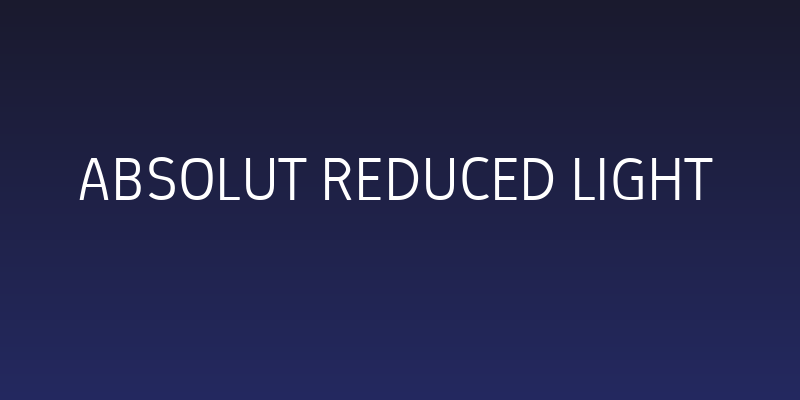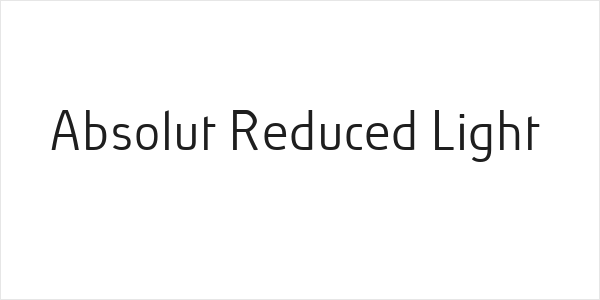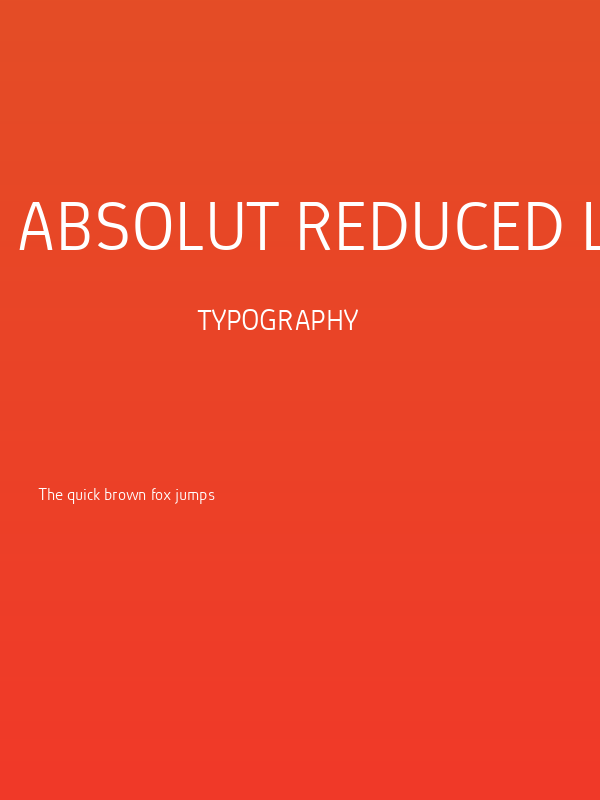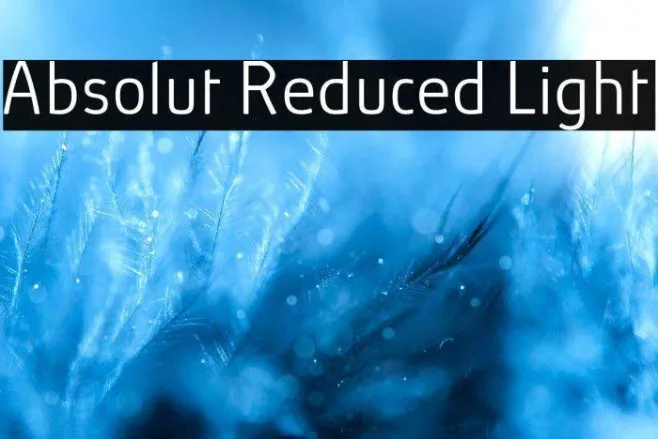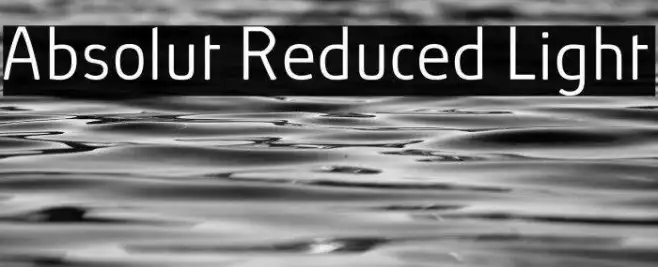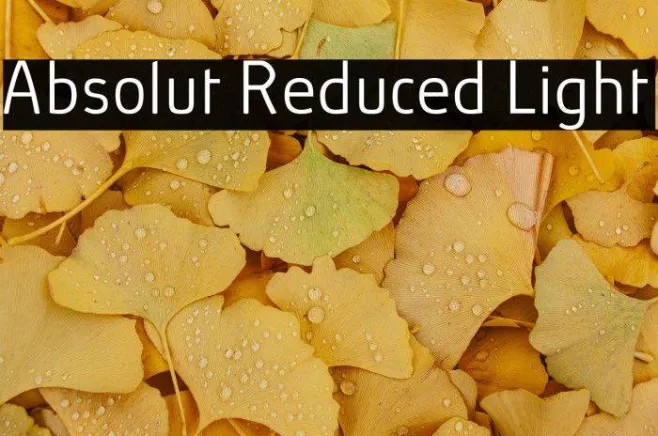
Absolut Reduced Light Font
Absolut Reduced Light Description
This font features a clean and modern sans-serif design with a geometric structure. The characters are evenly spaced, providing a balanced and harmonious appearance. The uppercase letters are uniform in height, while the lowercase letters maintain a consistent baseline, enhancing readability. The font's simplicity and clarity make it versatile for various design applications. It exhibits a light weight, contributing to its elegant and understated look. The rounded edges of certain characters add a touch of softness, while the overall design remains sleek and professional.
| Proposed Projects | Ideal for branding, web design, corporate materials, and minimalist posters. |